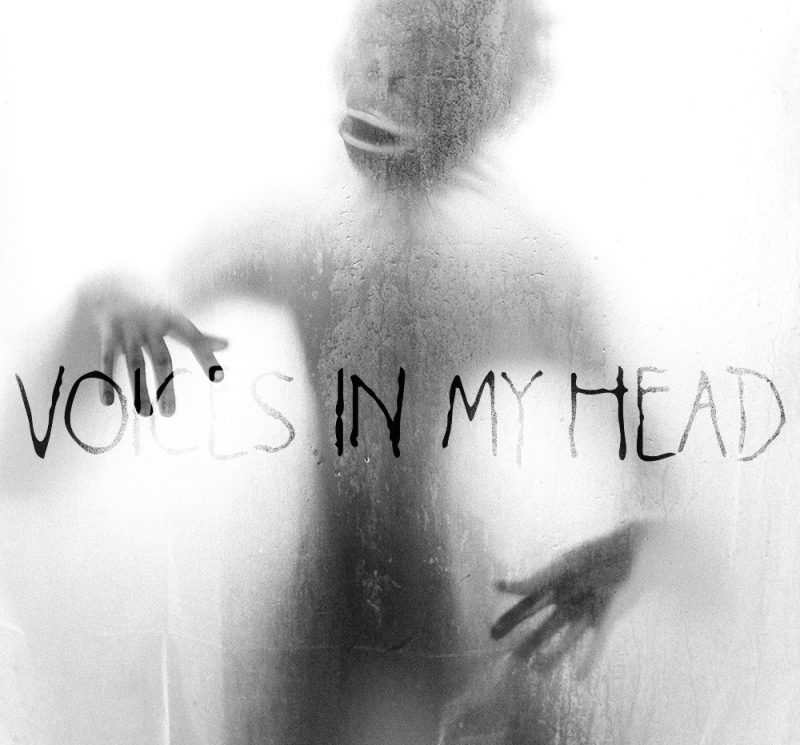
Voices in my Head Font
A horrortype created in 2018 by Chris Vile (me!). No numerals, punctuation, or symbols. Great for horror projects and terrortypes.